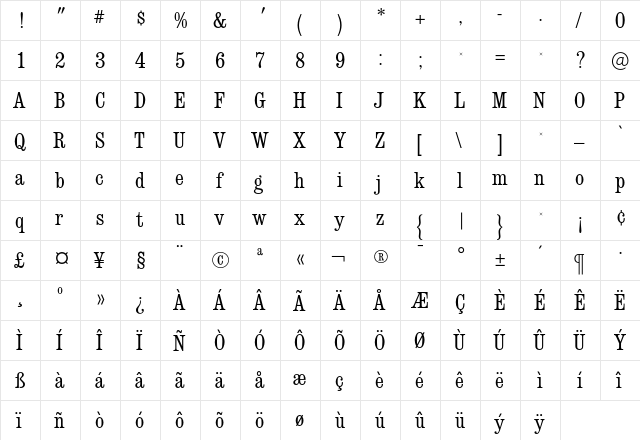
ConsortRR Regular
Design Context for ConsortRR Typeface
ConsortRR offers clean, dependable letterforms without strong stylistic allegiance, making it a practical choice for designers who need flexibility.
Pro Tip: Use ConsortRR in both headline and body roles to test its range before committing to a single application.